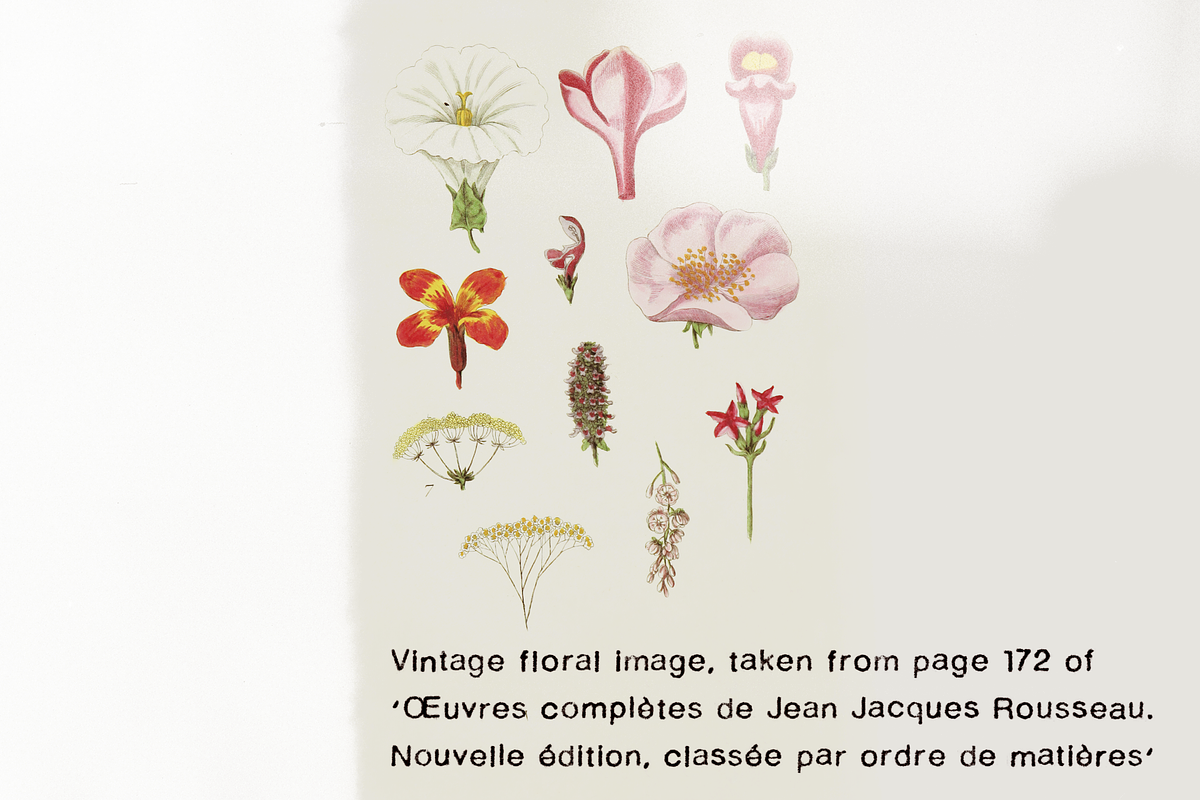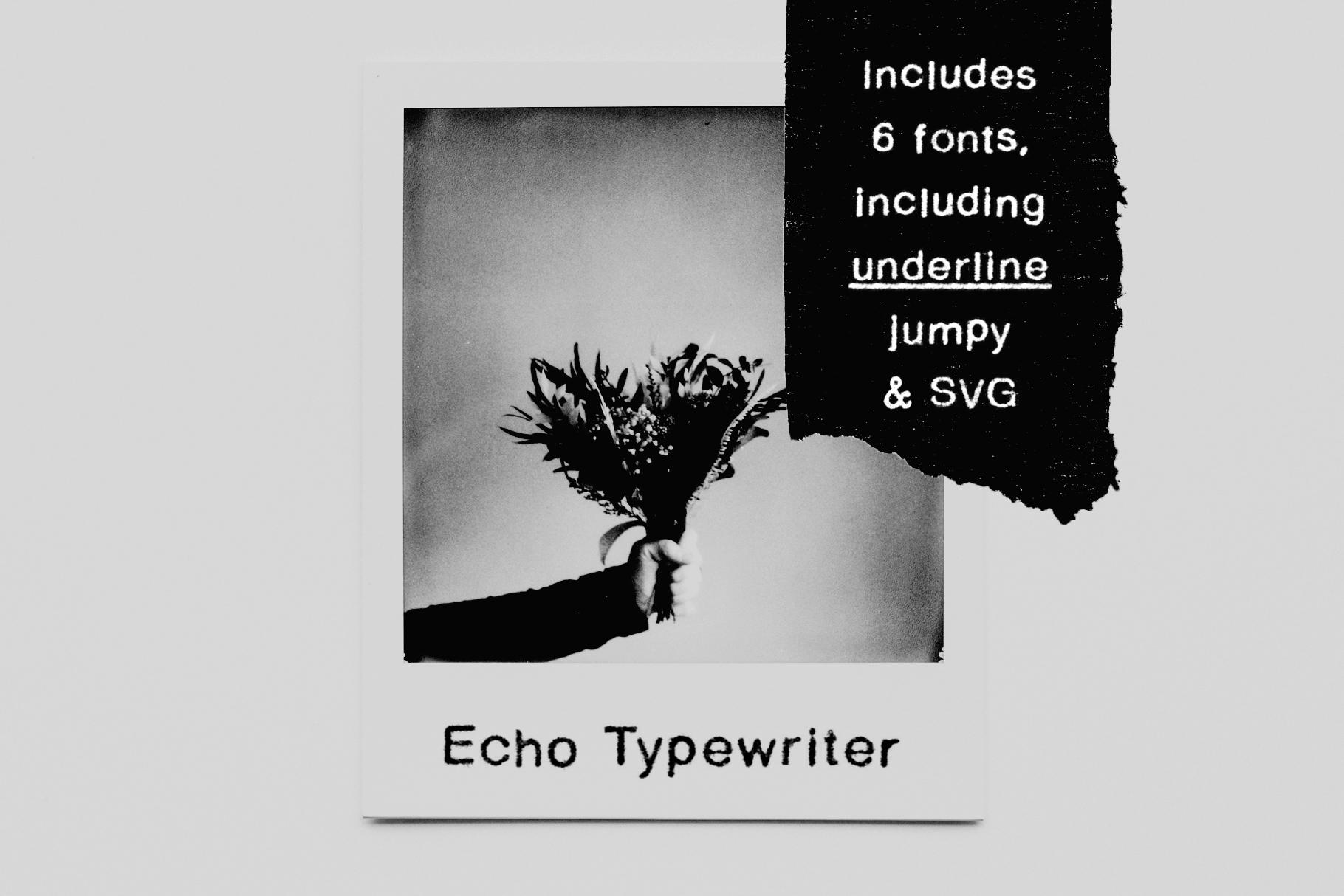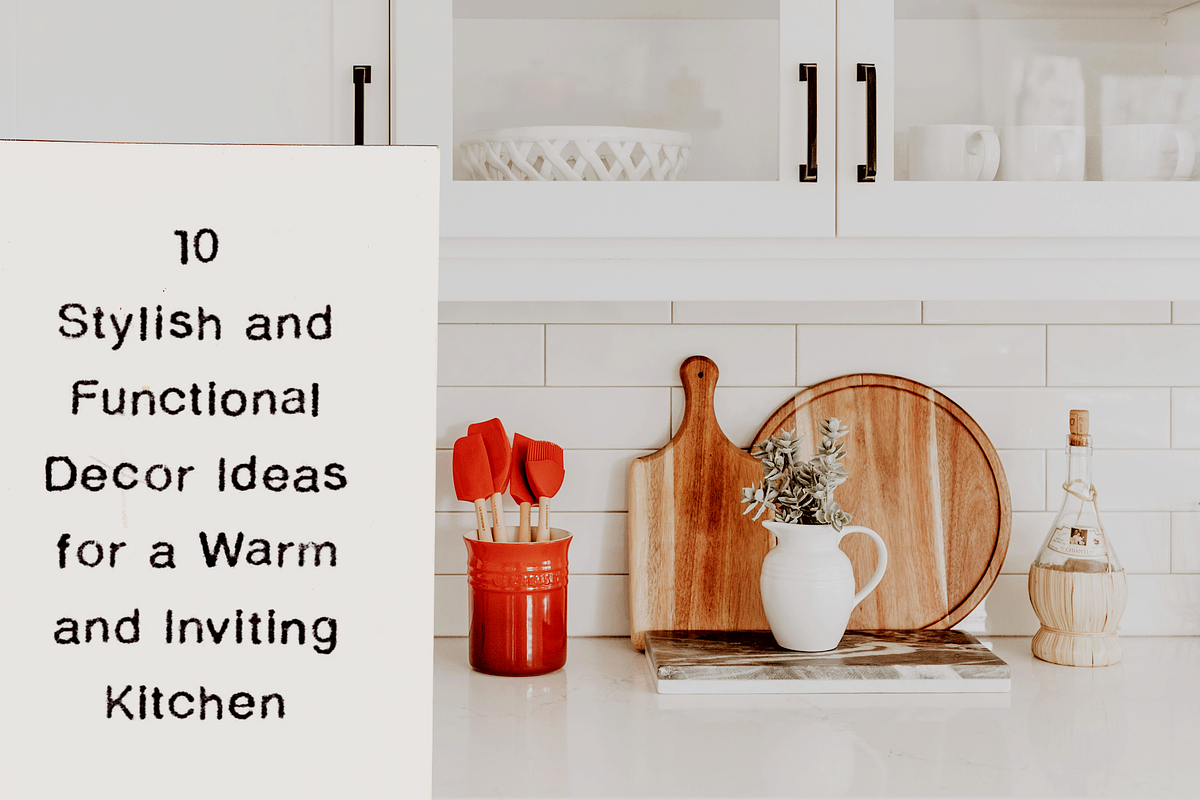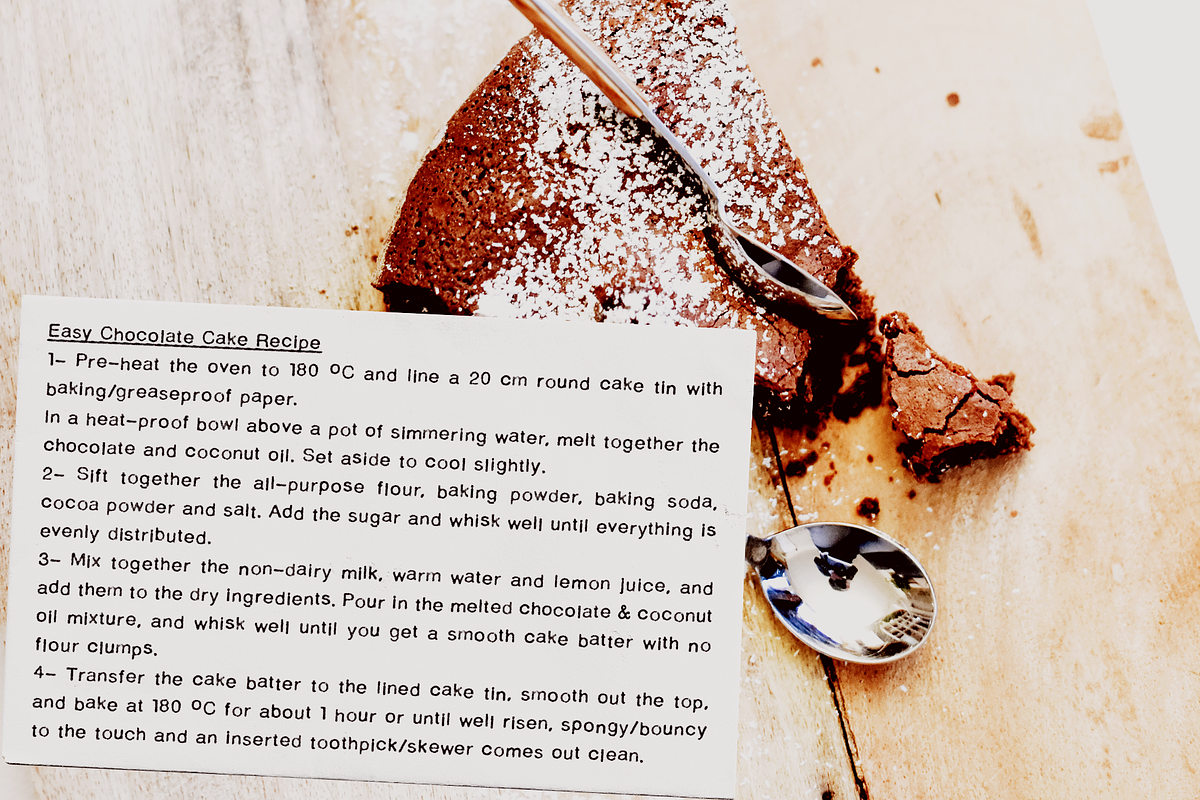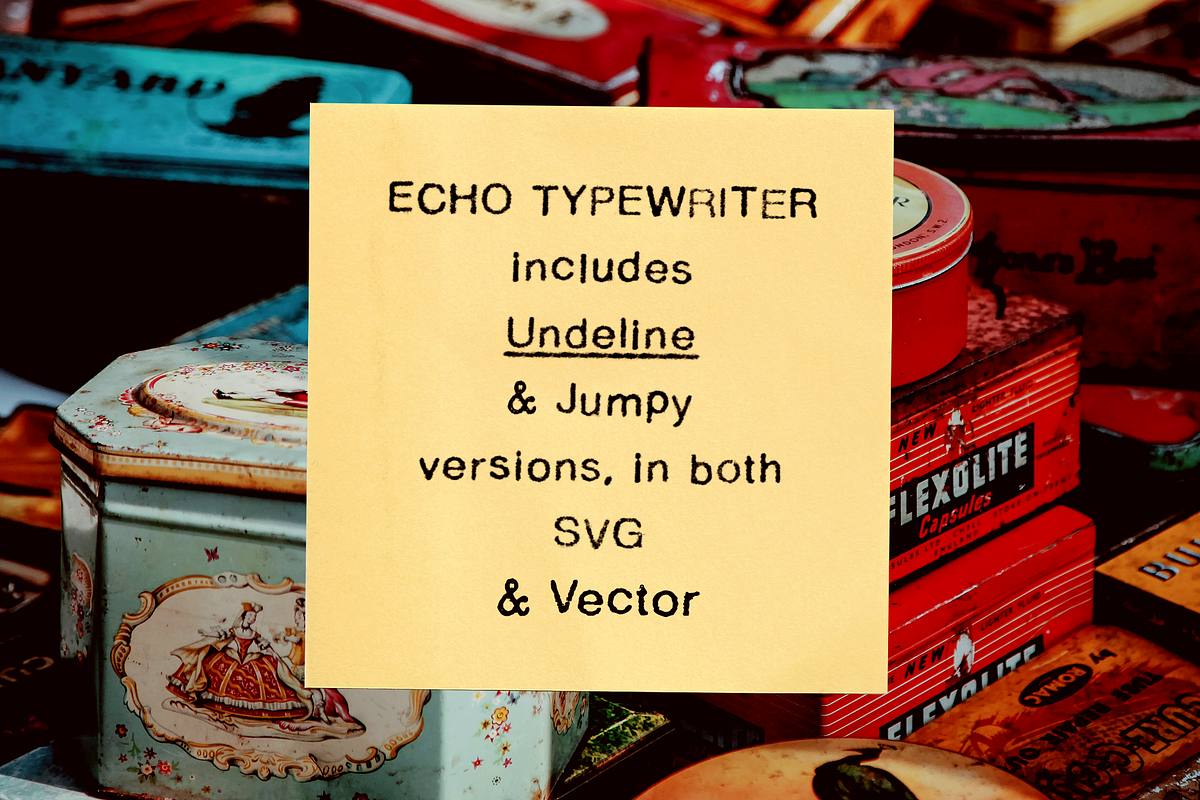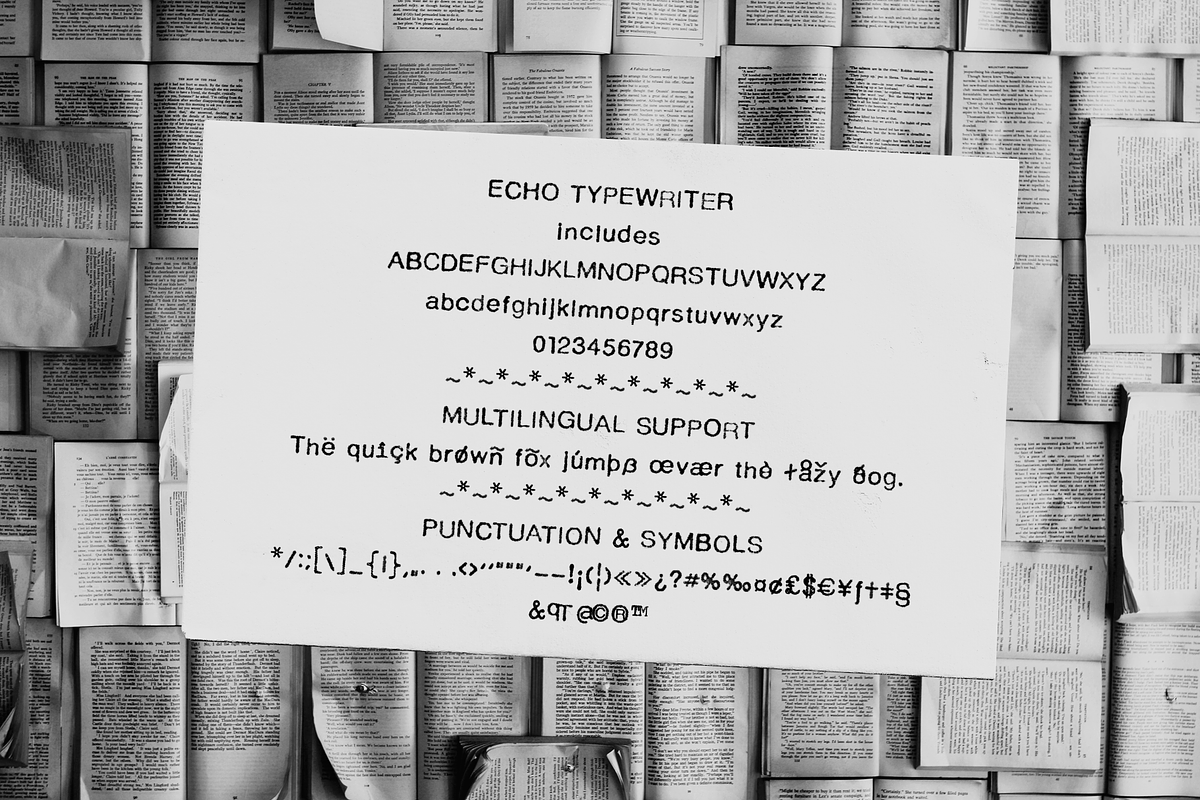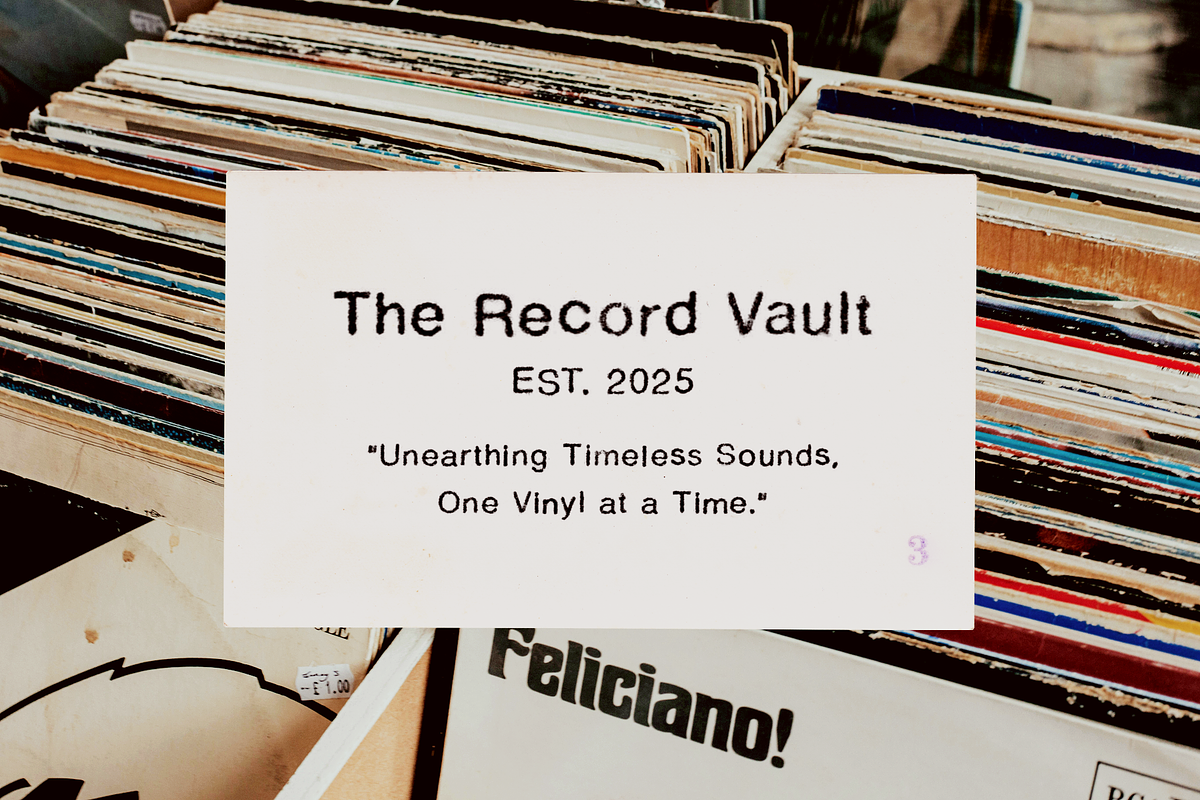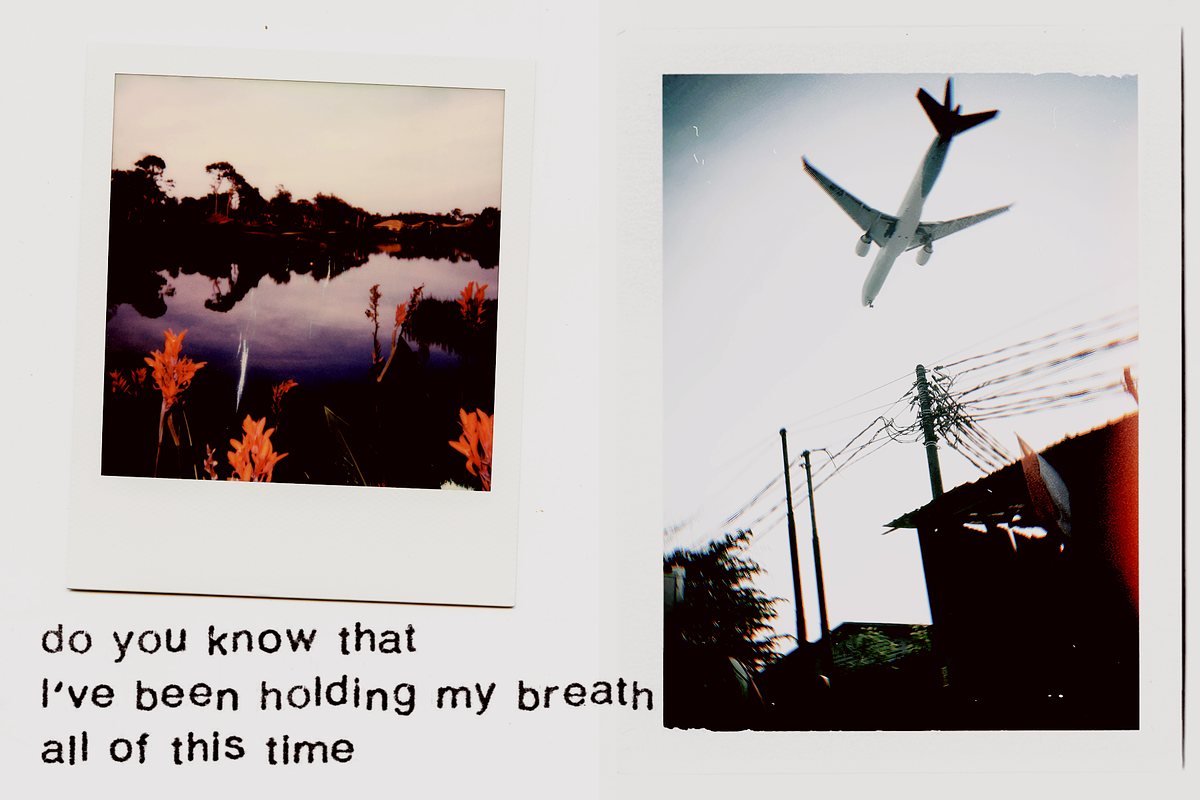
Echo Typewriter SVG Font
Meet Echo Typewriter, a textured sans serif typewriter font that blends vintage charm with a modern edge. Perfectly legible at small sizes yet bold enough for display use, this font brings a retro, grungy, and effortlessly cool feel to your designs.
With three unique variations – Regular, Underline, and Jumpy – you can mix and match for dynamic, imperfect, and handcrafted aesthetics. Whether you're creating collages, posters, branding, zines, or distressed editorial layouts, Echo Typewriter adds the perfect touch of nostalgic imperfection.
- Sans Serif Typewriter Style – A clean yet organic typewriter look
- Textured & Vintage Feel – Beautifully rough and authentic
- Three Styles – Regular (classic), Underline (emphasized), and Jumpy (playful, misaligned)
- Perfect for retro branding, grunge aesthetics, packaging, and editorial design